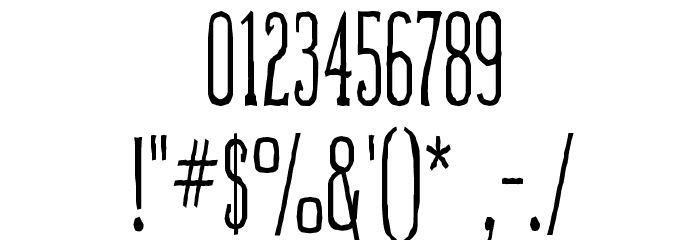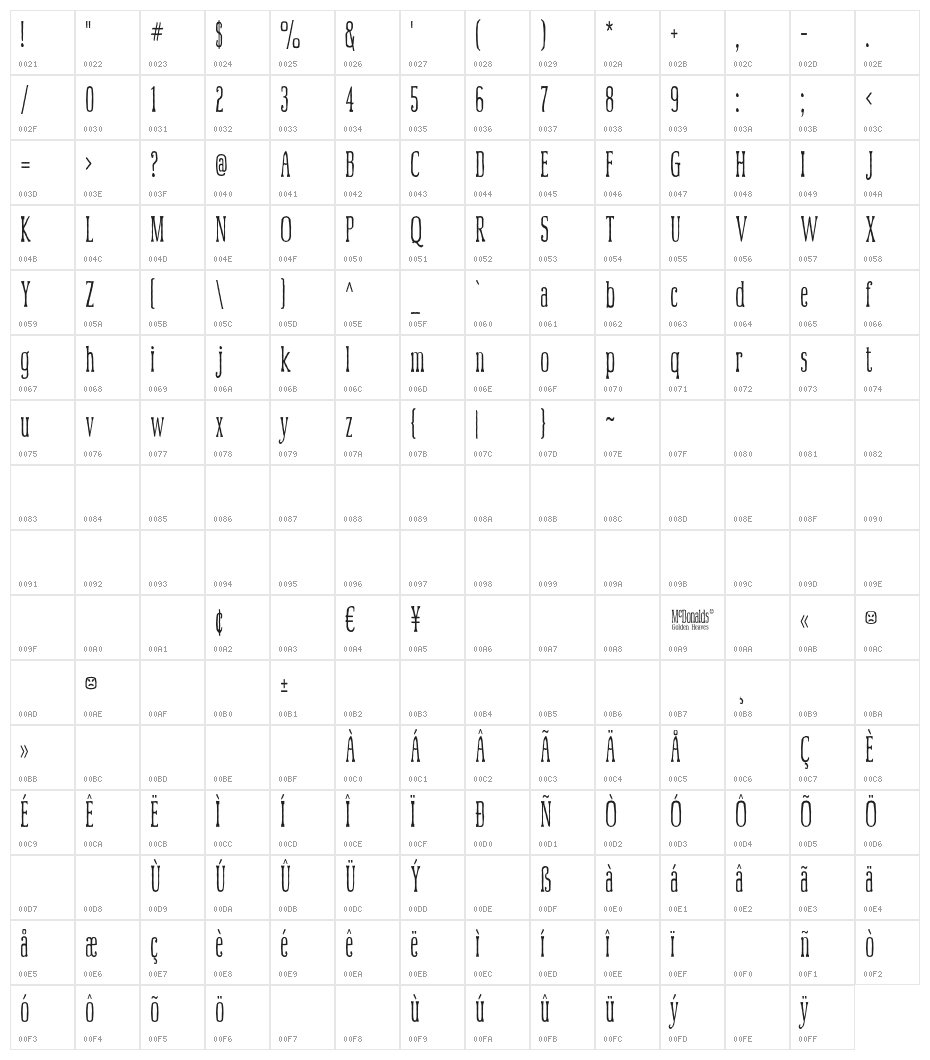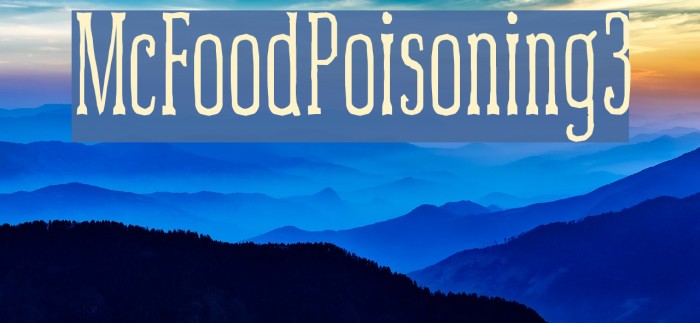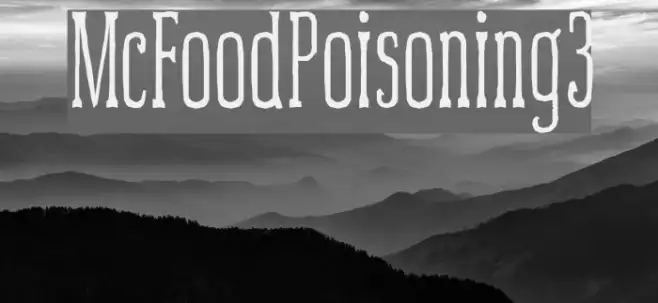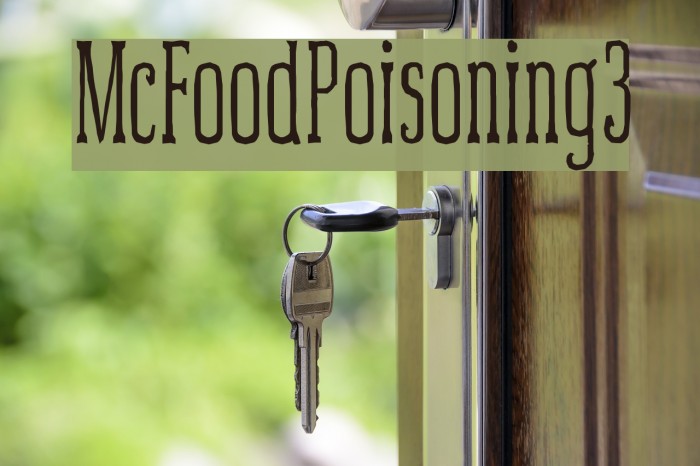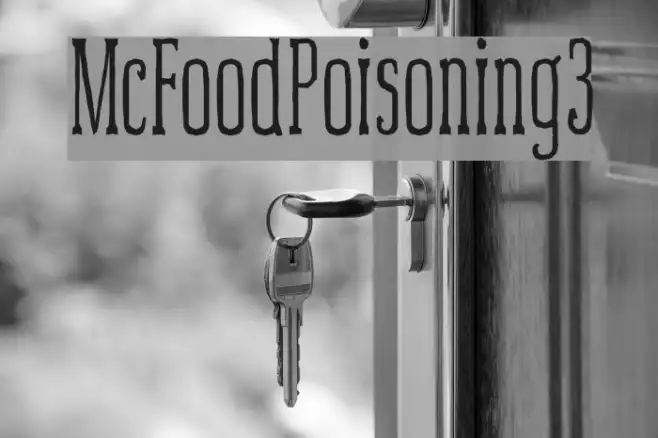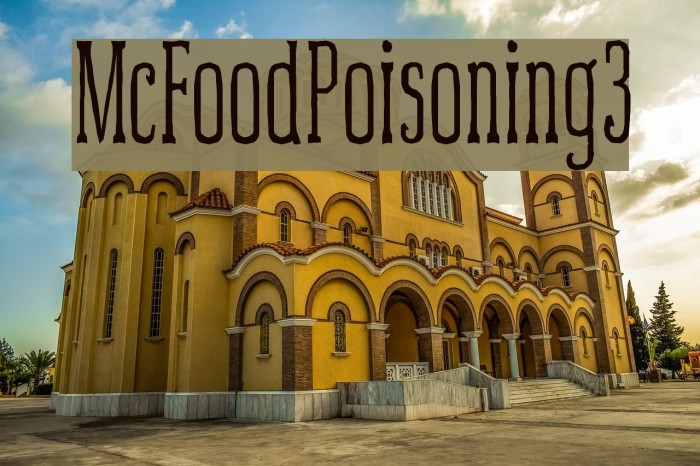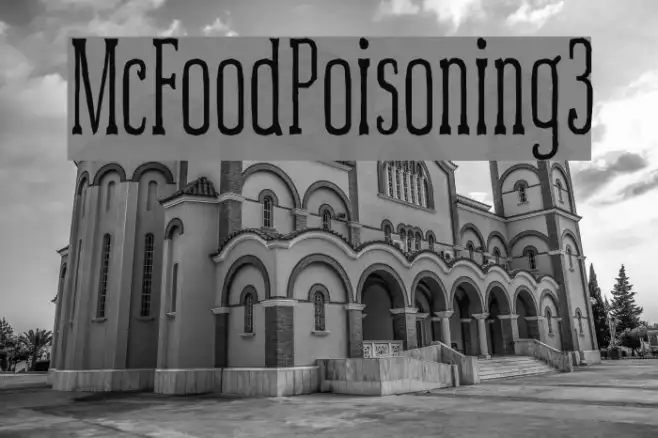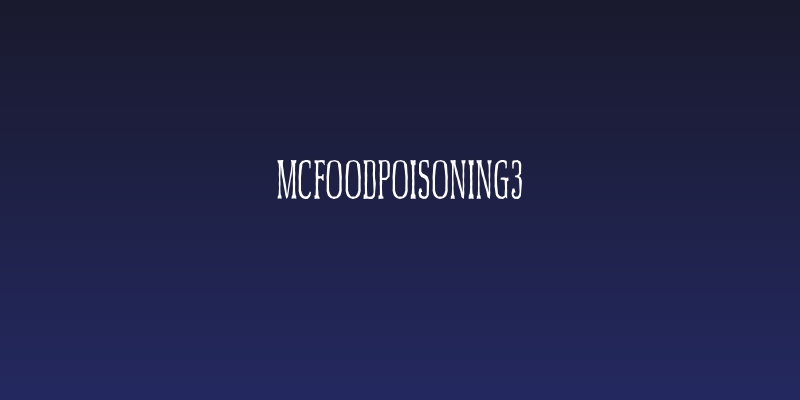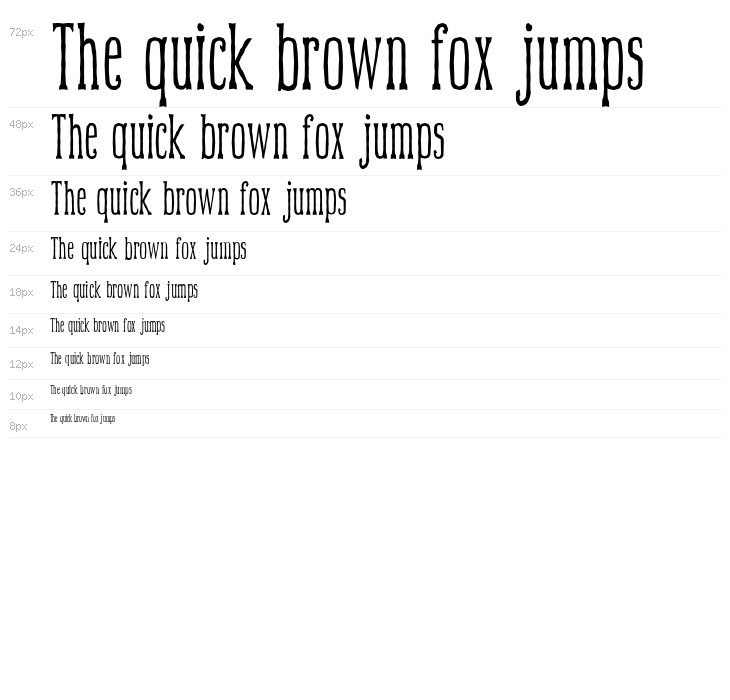
McFoodPoisoning3 Font
McFoodPoisoning3 Description
This font features a distinctive, vintage style with elongated and slightly irregular strokes, giving it a hand-crafted appearance. The uppercase letters are tall and narrow, while the lowercase letters maintain a consistent height with a more condensed form. The numbers and special characters follow the same stylistic cues, ensuring a cohesive look throughout. The overall design is reminiscent of old-fashioned signage or posters, with a touch of rustic charm. Its unique character makes it suitable for projects that require a nostalgic or artisanal feel.
| Proposed Projects | Ideal for vintage-themed posters, artisanal product packaging, and retro branding projects. |